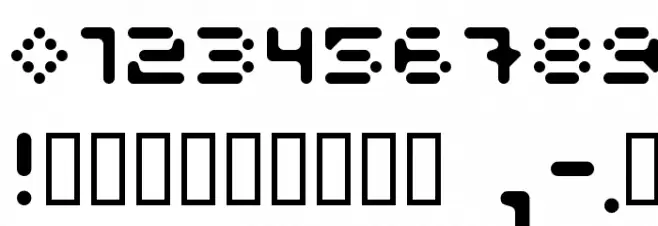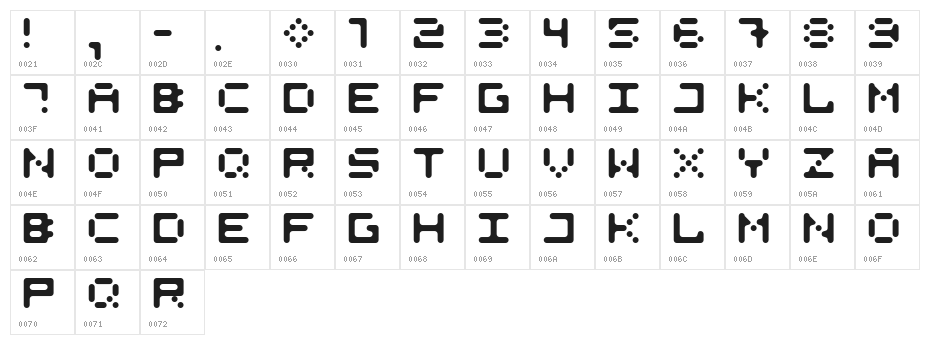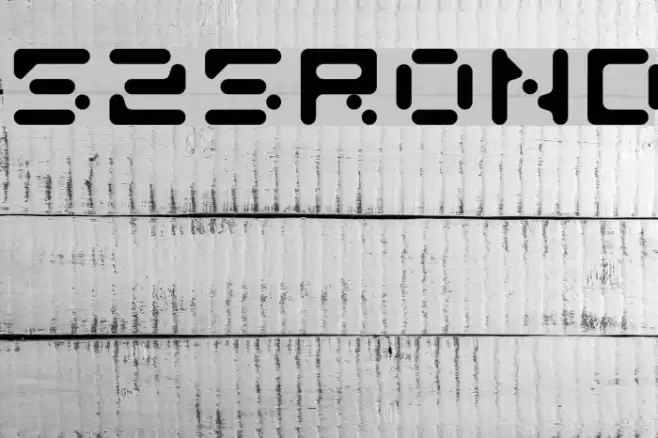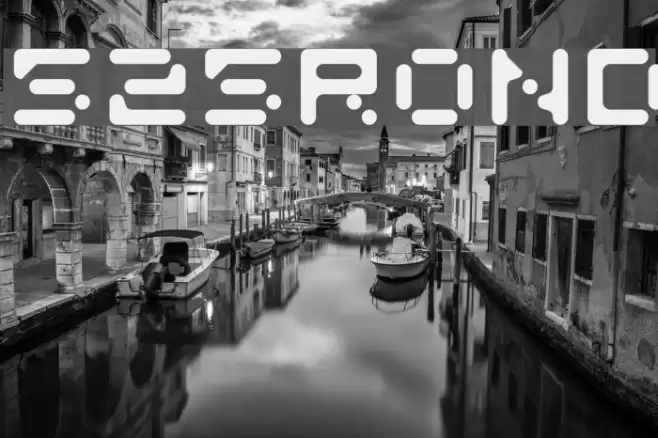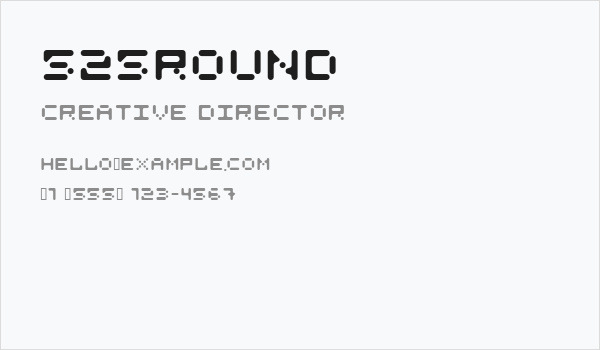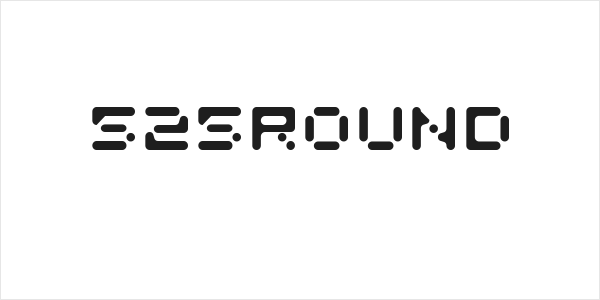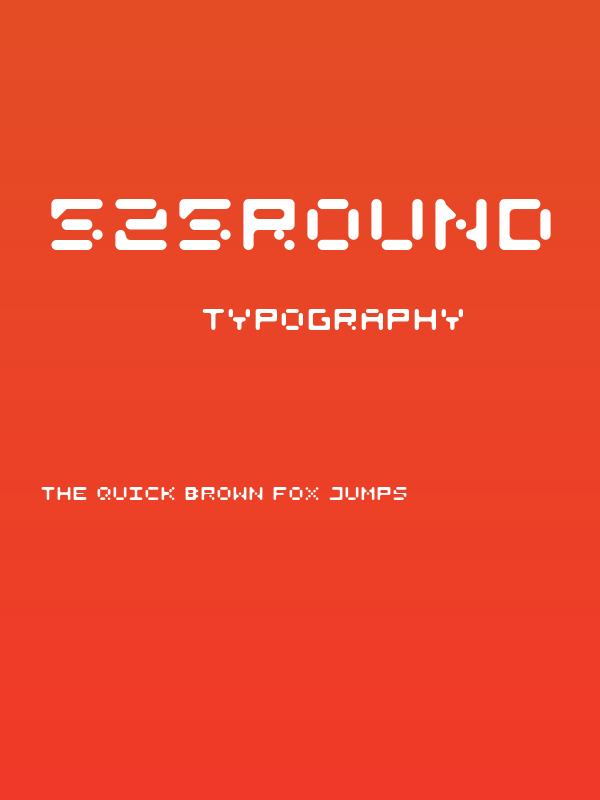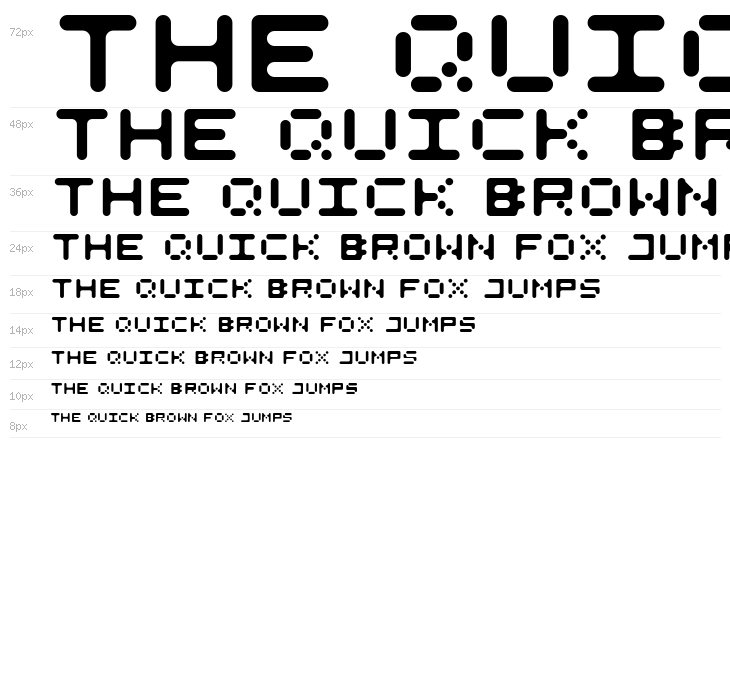
525round Font
525round Description
This font features a unique, futuristic design with rounded edges and a dot-matrix style. Each character is composed of bold, geometric shapes, giving it a digital and modern appearance. The letters and numbers are constructed with a combination of solid lines and circular dots, creating a visually striking pattern that resembles early digital displays or LED screens. The font maintains a consistent weight throughout, with a uniform width that ensures readability while adding a distinctive, tech-inspired aesthetic. Its playful yet structured design makes it suitable for projects that require a modern and innovative look.
| Use Case | Headlines, Logos, Digital Interfaces |
| Proposed Projects | Ideal for tech-themed designs, digital interfaces, video game graphics, and modern branding projects. |